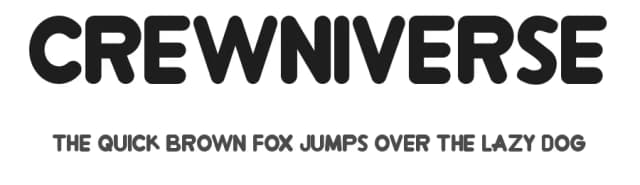
About Dunkin Font
Dunkin is a bold, smooth font based loosely on the popular logo of the Dunkin Donuts restaurant franchise. Includes full alphabet, lower case, accents, and Euro. Includes bold, italic, bold-italic, and sans versions of all of the above.
Dunkin Font